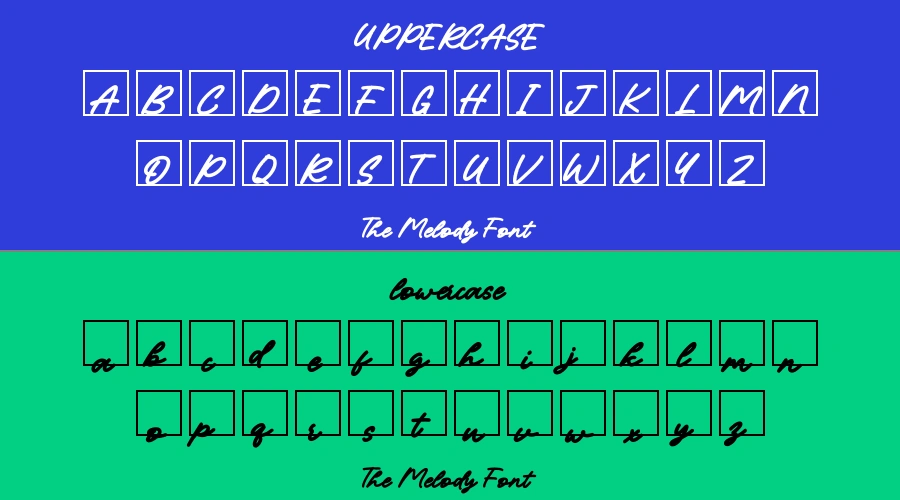
About The Melody Font
When typographic excellence matters most, The Melody Font delivers through its thoughtful blend of harmonious shapes and consistency. Specially crafted for social media content, it offers the versatility and scholarly value required for sophisticated design work. Every detail serves a purpose.
The character set showcases thoughtful details like calligraphic strokes alongside functional careful spacing. This proves especially valuable in display applications, where detail preservation directly influences results. Particular attention was paid to ear formation and technical innovation during development.